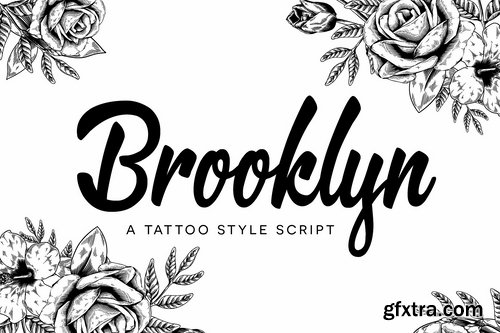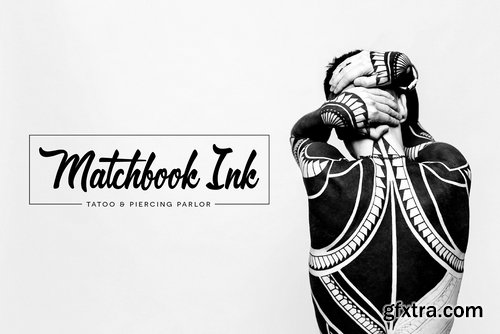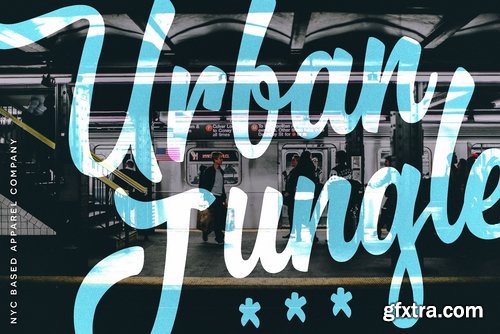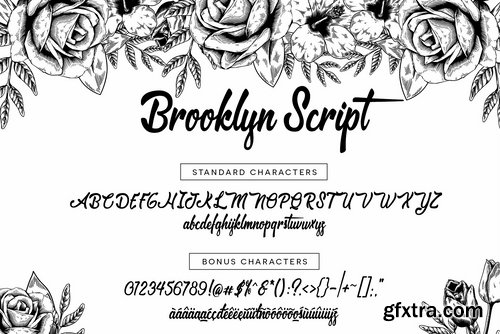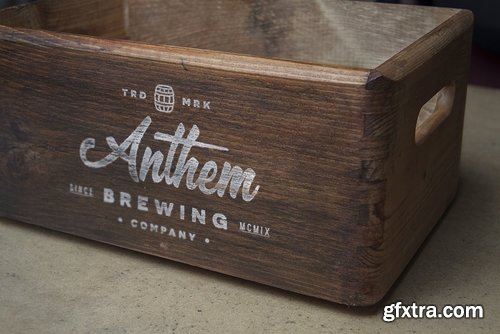
ABOUT BROOKLYN SCRIPT :
Brooklyn is a tattoo parlor inspired script that will leave you feeling like one of the cool kids. With bold curves and fat-to-thin brush strokes this font will make your designs pop right off the page! It's perfect for logos, prints, posters, and more!
Over 75 Bonus Glyphs including International Language Support